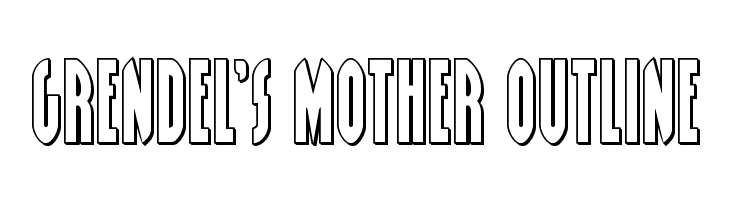
A bold, outlined font with a modern and impactful style.
A whimsical, heart-shaped font with a handwritten, brush-like style.
A bold, italic script font with smooth, flowing strokes.
A playful, handwritten font with smooth, flowing lines and a casual appearance.
A modern, bold font with open outlines and a condensed style.
A decorative serif font with uppercase letters in floral wreaths.
An elegant script font with intricate curls and flowing lines.
A playful, bold, and hand-drawn style font with a whimsical and dynamic appearance.
A playful and energetic handwritten font with bold, fluid strokes.
A playful, cupcake-themed decorative font with bold, rounded characters.